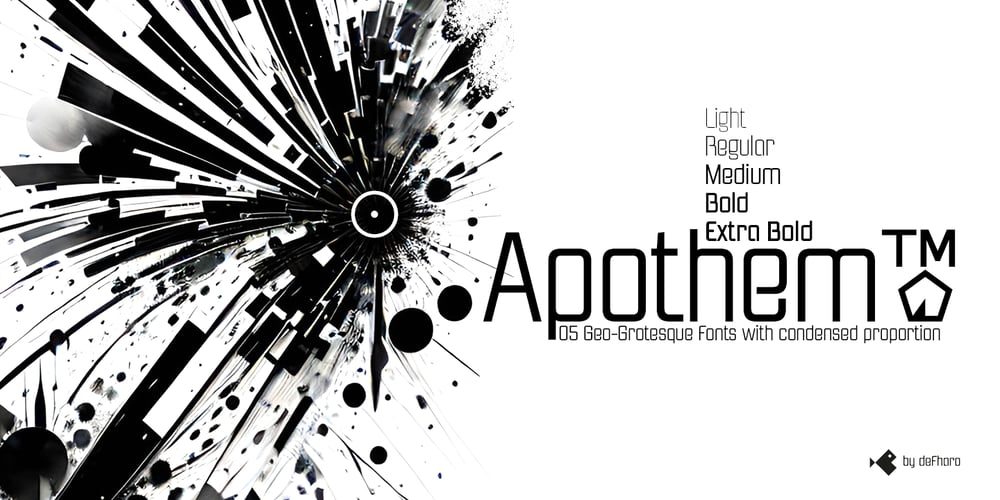
Apothem Condensed
Apothem Condensed font
Apothem Condensed Font Family was designed by Fernando Haro and published by deFharo. Apothem Condensed contains 5 styles and family package options. Apothem is a very versatile condensed typefaces, recommended for a wide range of applications. From the composition and design of publications, brochures, posters or signage to the creation of logos, product packaging, signage or corporate image, elevating any project to a higher level.Apothem encapsulates the essence of geometry, mathematics, and the refined art of sans serif fonts.Creating Apothem has not been an easy task; It has required a meticulous process, full of patience and an unwavering passion for avant-garde typographic design. This effort has resulted in a futuristic geometric style typography, characterized by its elegance, exceptional readability and effortless elegance.Apothem is distinguished by its five different weights, expanding the creative possibilities for designers and brands.Its support for Latin Extended-A, condensed proportion, alternative letters and numbers, and advanced Open Type features, including dynamic fractions, make it an indispensable tool in any designer’s arsenal.The meticulous definition of proportions, metrics and kerning, inspired by the beauty of golden mathematical sequences, guarantee maximum readability and a wide range of usage modes.